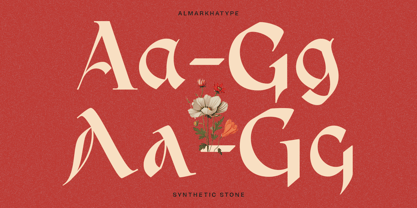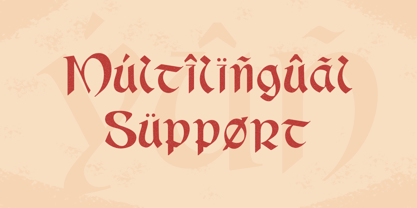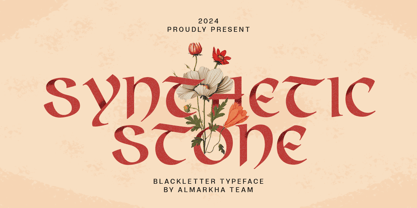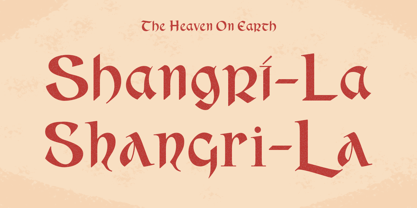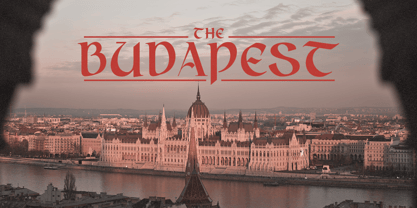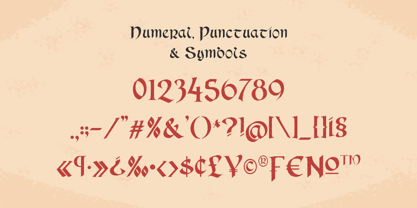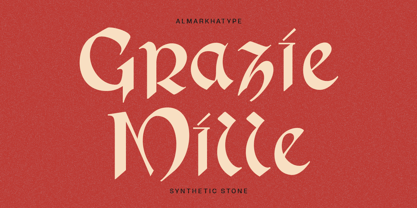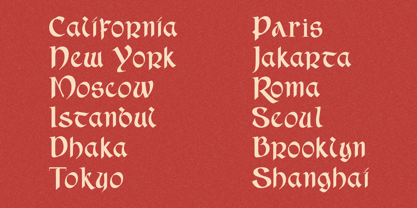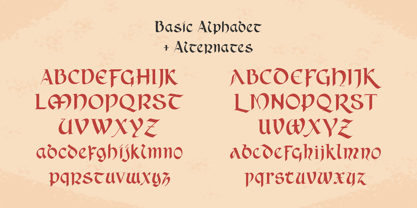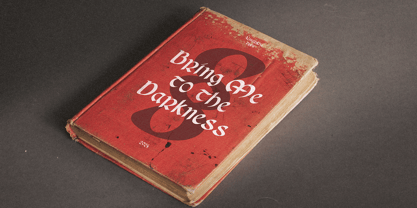
Synthetic Stone
von Almarkha Type
Die Schriftfamilie Synthetic Stone wurde von Abdul Malik Wisnu entworfen und von Almarkha Type veröffentlicht. Synthetic Stone enthält 1 Stile. Mehr über diese Familie
Introducing Synthetic Stone – a beautifully crafted typeface inspired by the historic elegance of uncial script. Rooted in the rich tradition of early medieval manuscripts, Synthetic Stone captures the timeless essence of this ancient calligraphic style, bringing a touch of classic sophistication to modern design. Drawing from the rich history of uncial script, which was prominent from the 3rd to 8th centuries, Synthetic Stone reflects the artistry and craftsmanship of early scribes. This typeface pays homage to the elegance of ancient manuscripts while offering a modern twist that makes it relevant for today’s designers.
Designer: Abdul Malik Wisnu
Foundry: Almarkha Type